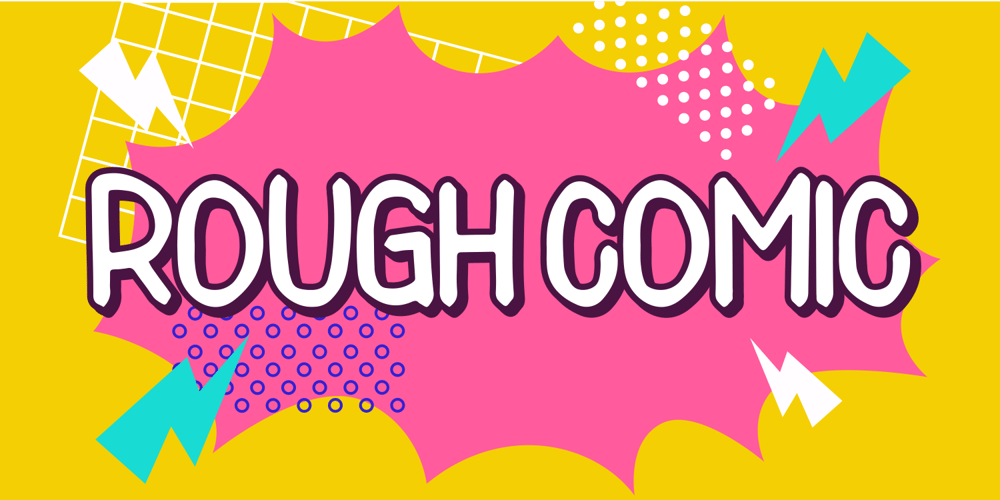
Rough Comic Font Family was designed by ANGGI HERMAWAN and published by Forberas Club. Rough Comic contains 1 styles and family package options. This cute font create with love and inspired from cute moment. Let’s try this font for your colourful moment and cartoon style. Cheers